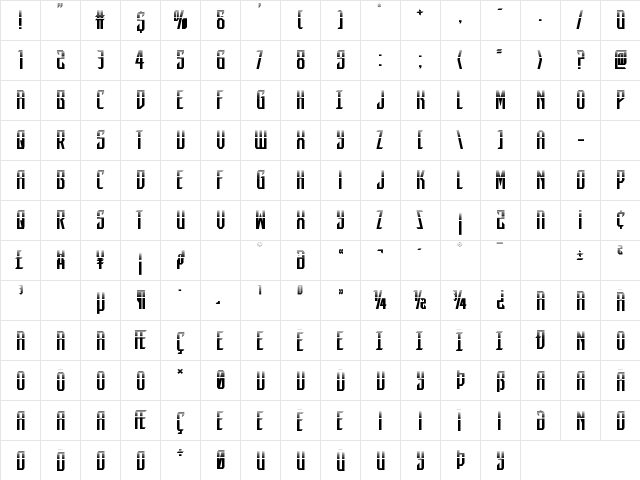
Dark Dominion Halftone Regular
Design Context for Dark Dominion Halftone Typeface
Dark Dominion Halftone is a composed and adaptable typeface that performs quietly and consistently across a wide range of design contexts.